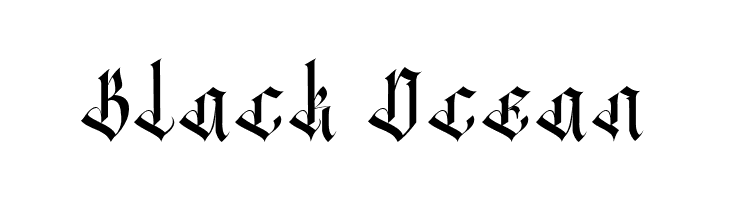
A bold, gothic Blackletter font with intricate, angular designs.
A bold, geometric font with a military-inspired design.
A bold, geometric font with a military-inspired, stencil-like design.
A bold, dripping font perfect for spooky or horror-themed designs.
A bold, gothic-inspired font with sharp, angular edges and intricate details.
A bold, elegant script font with flowing curves and ornate details.